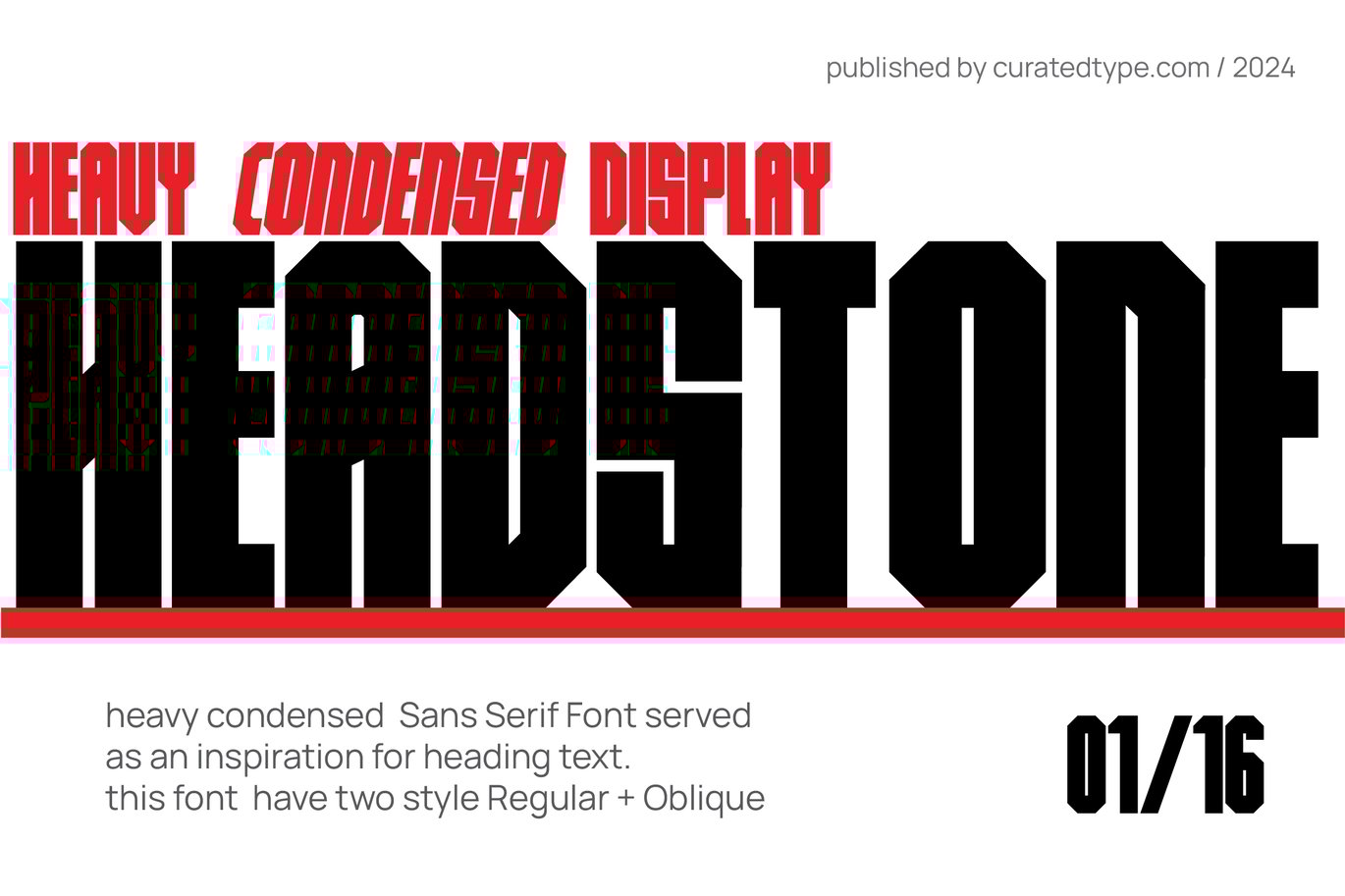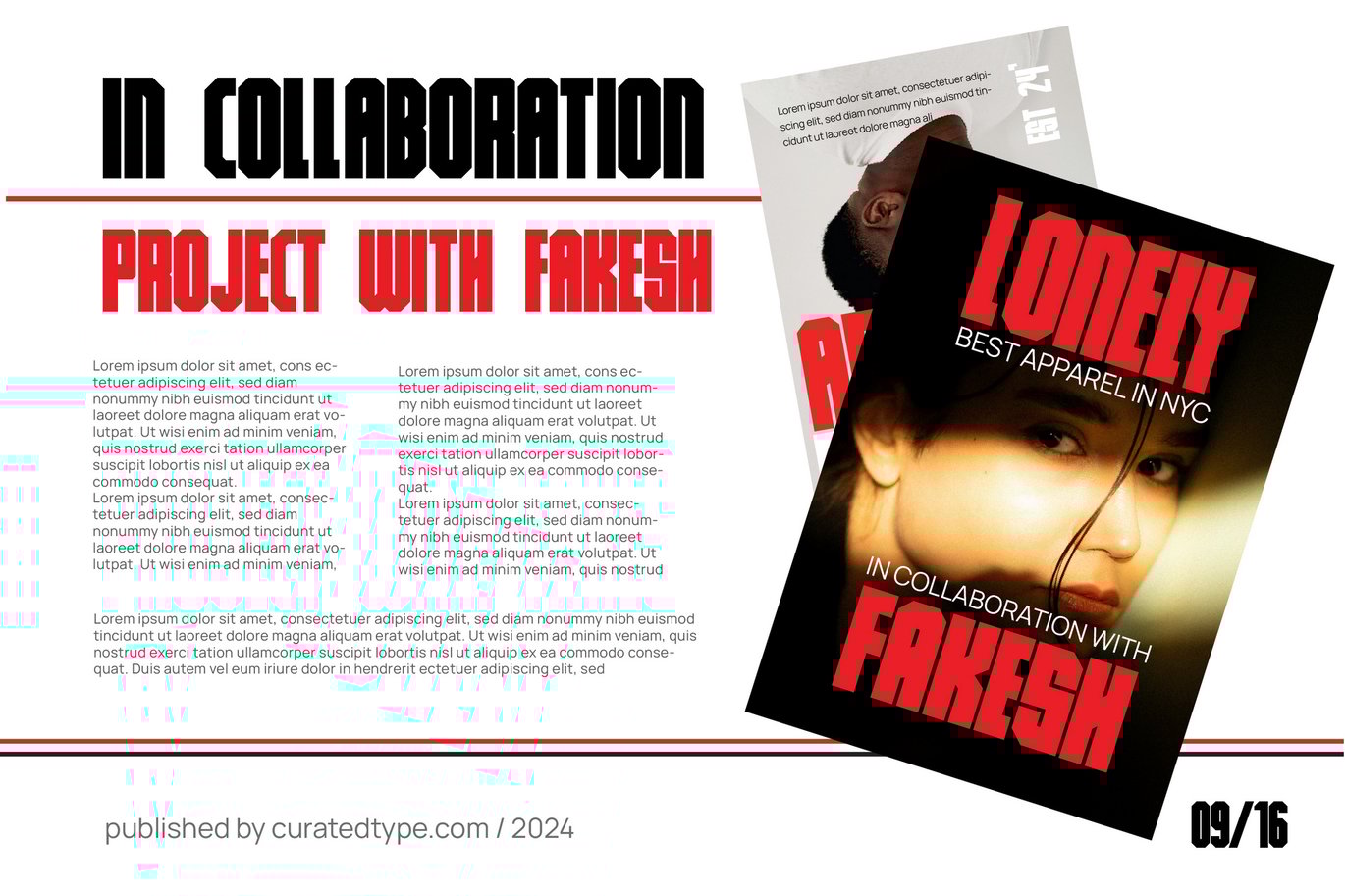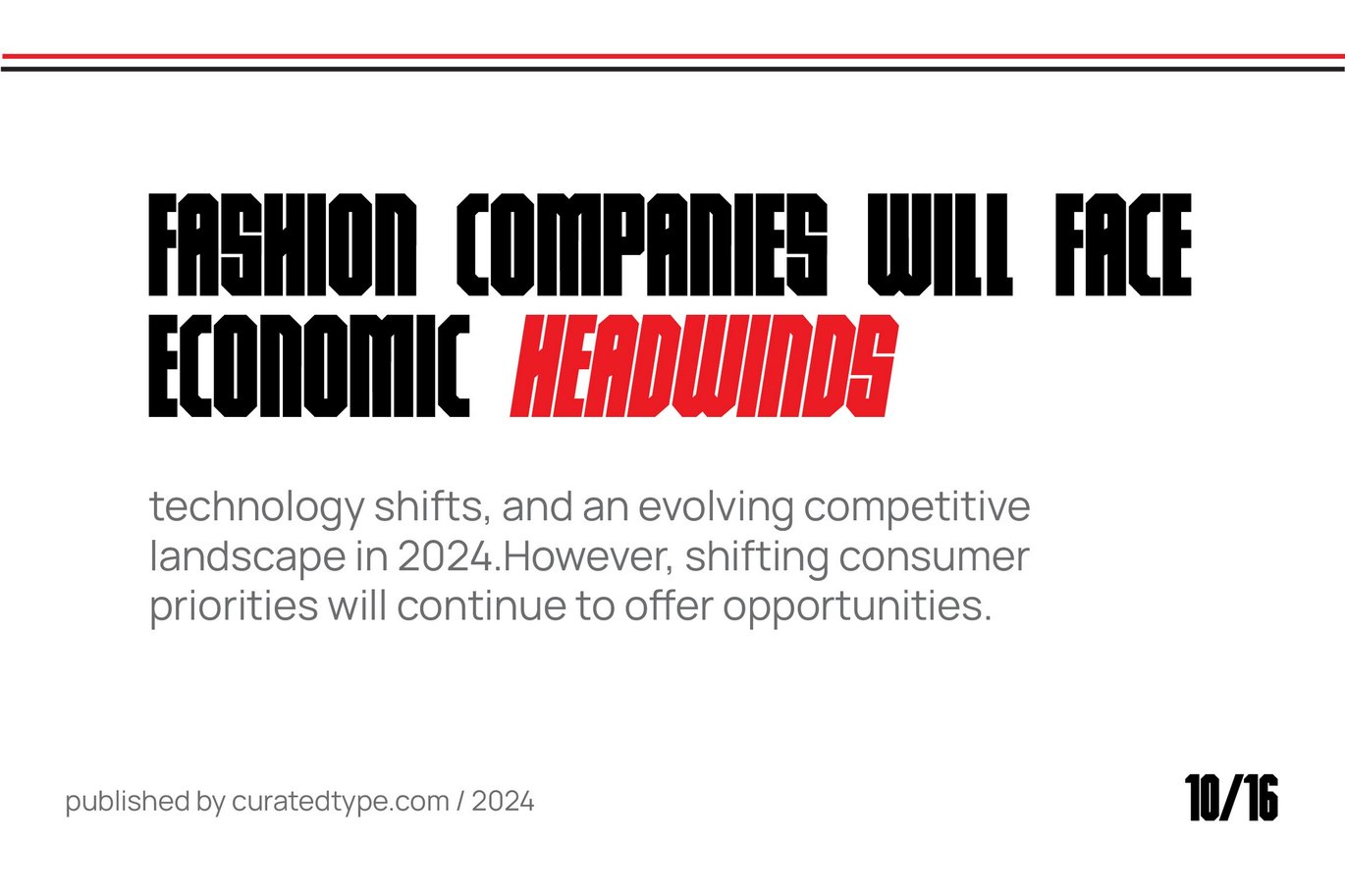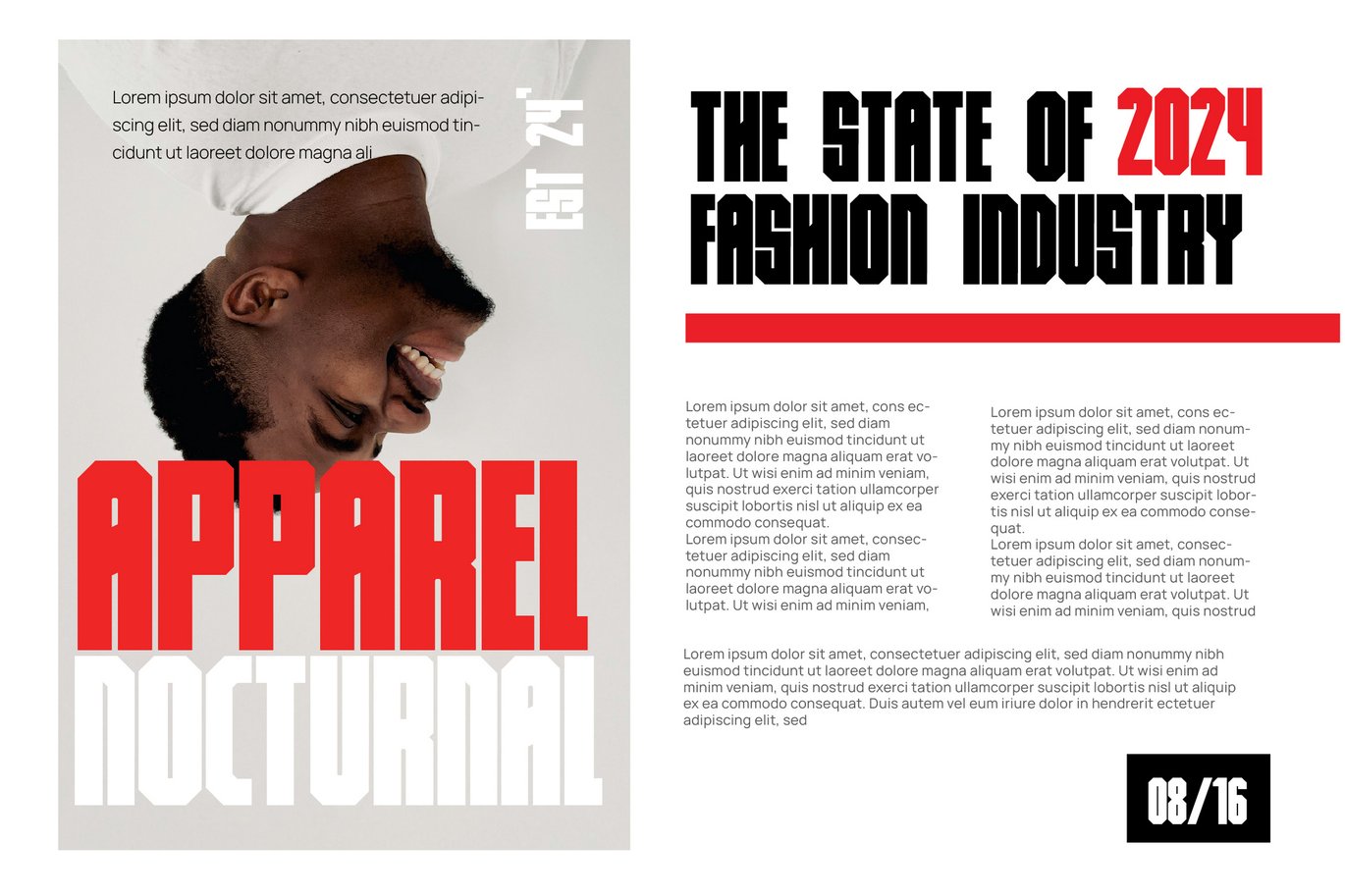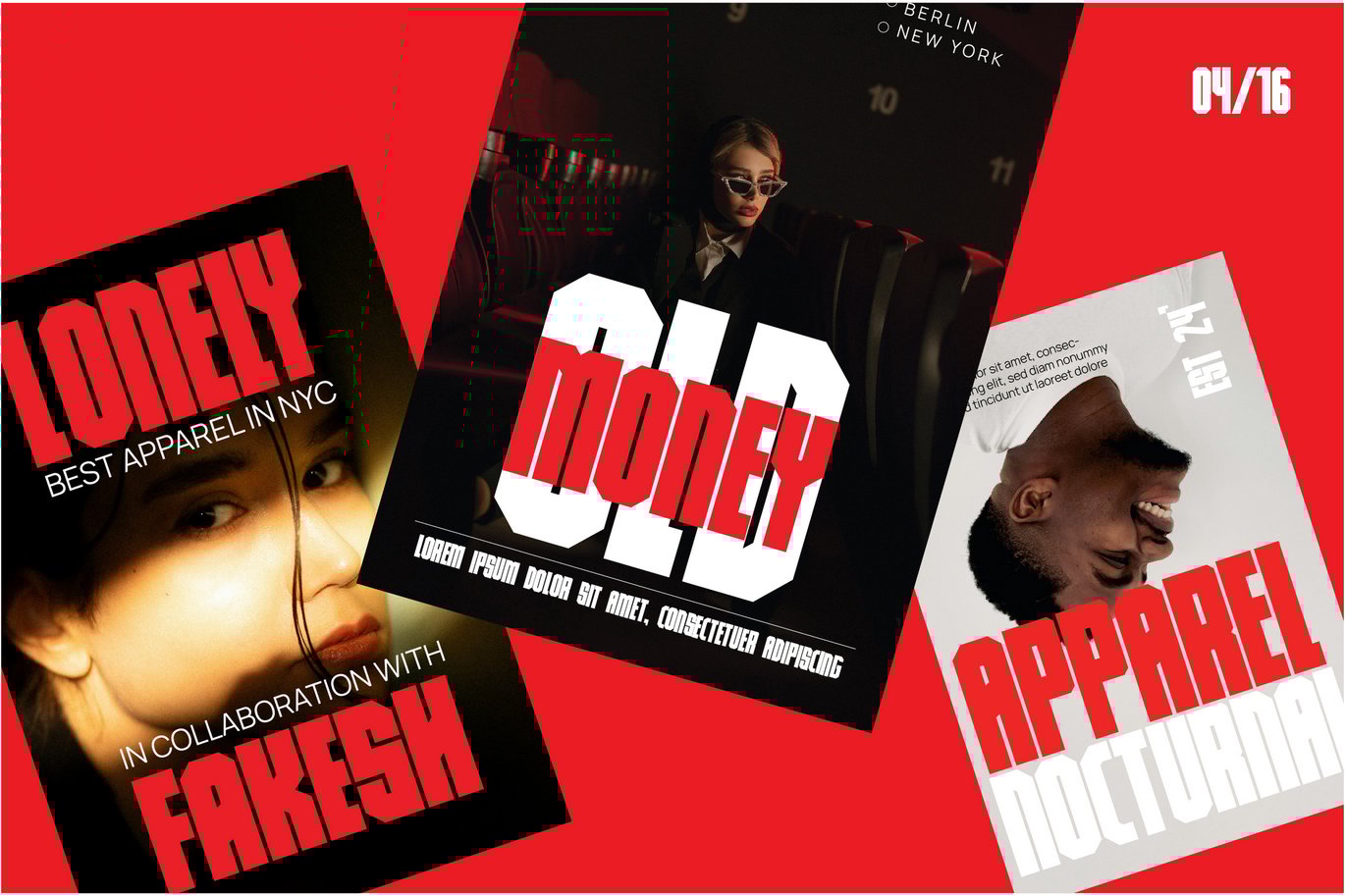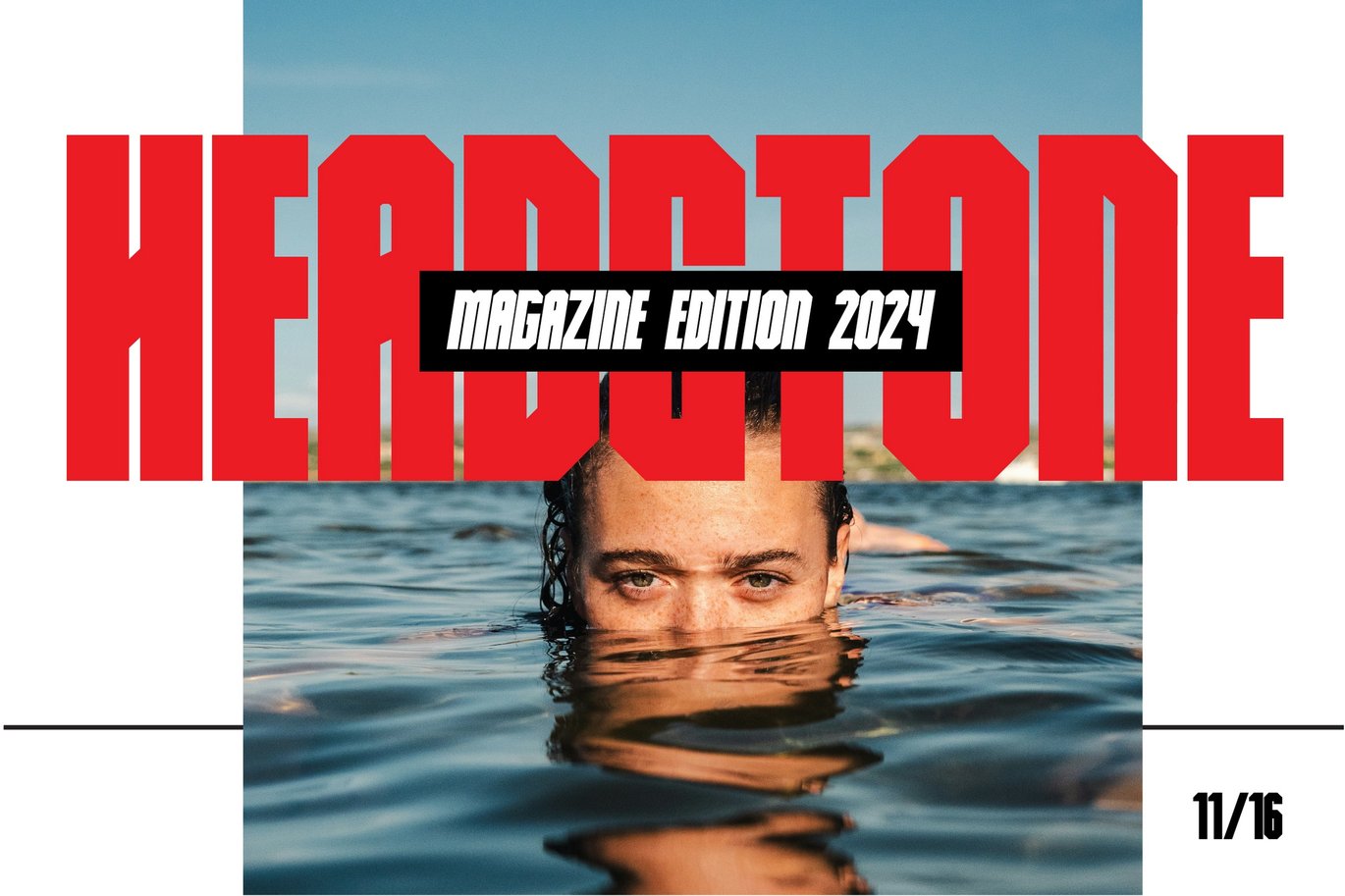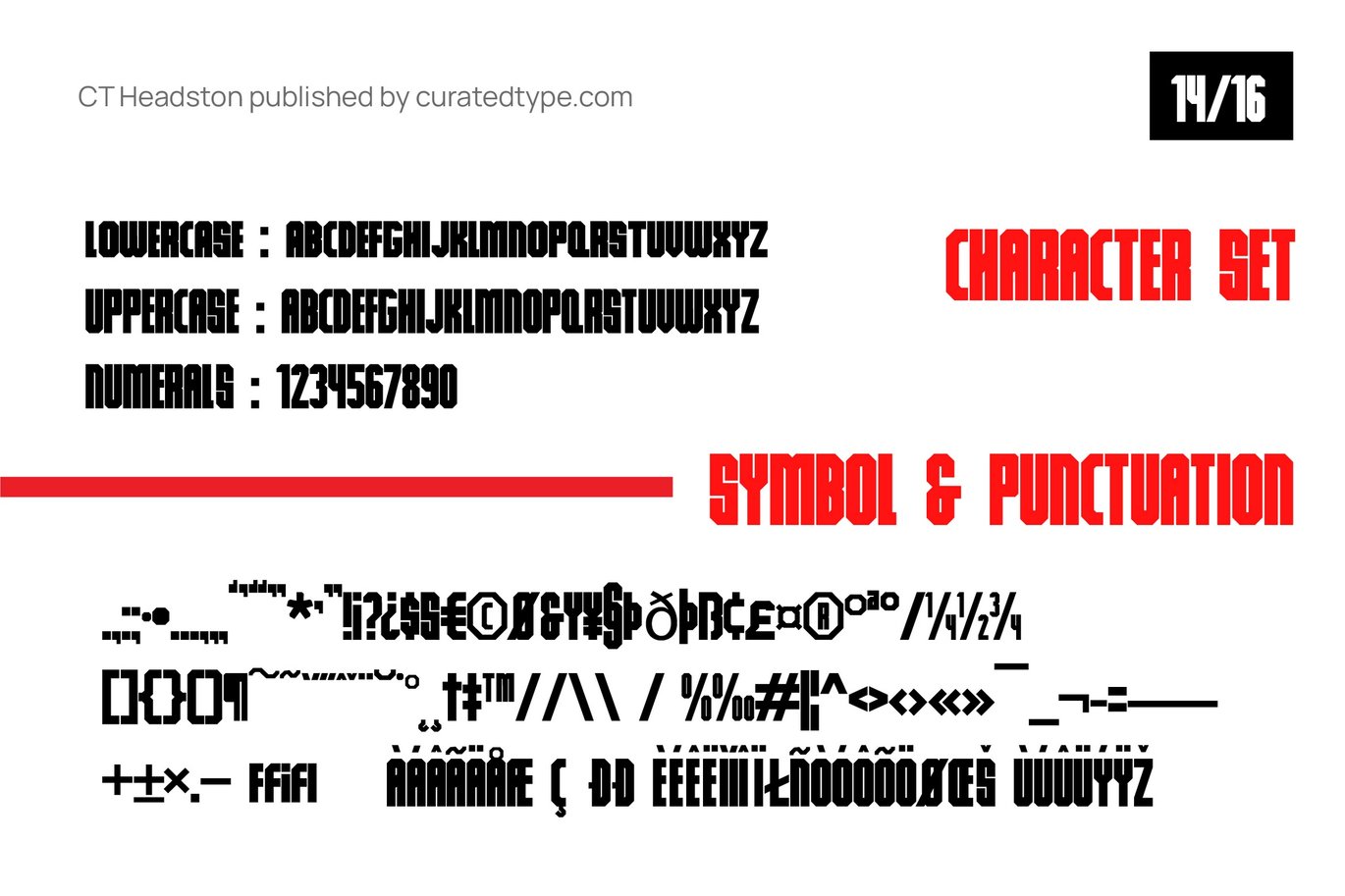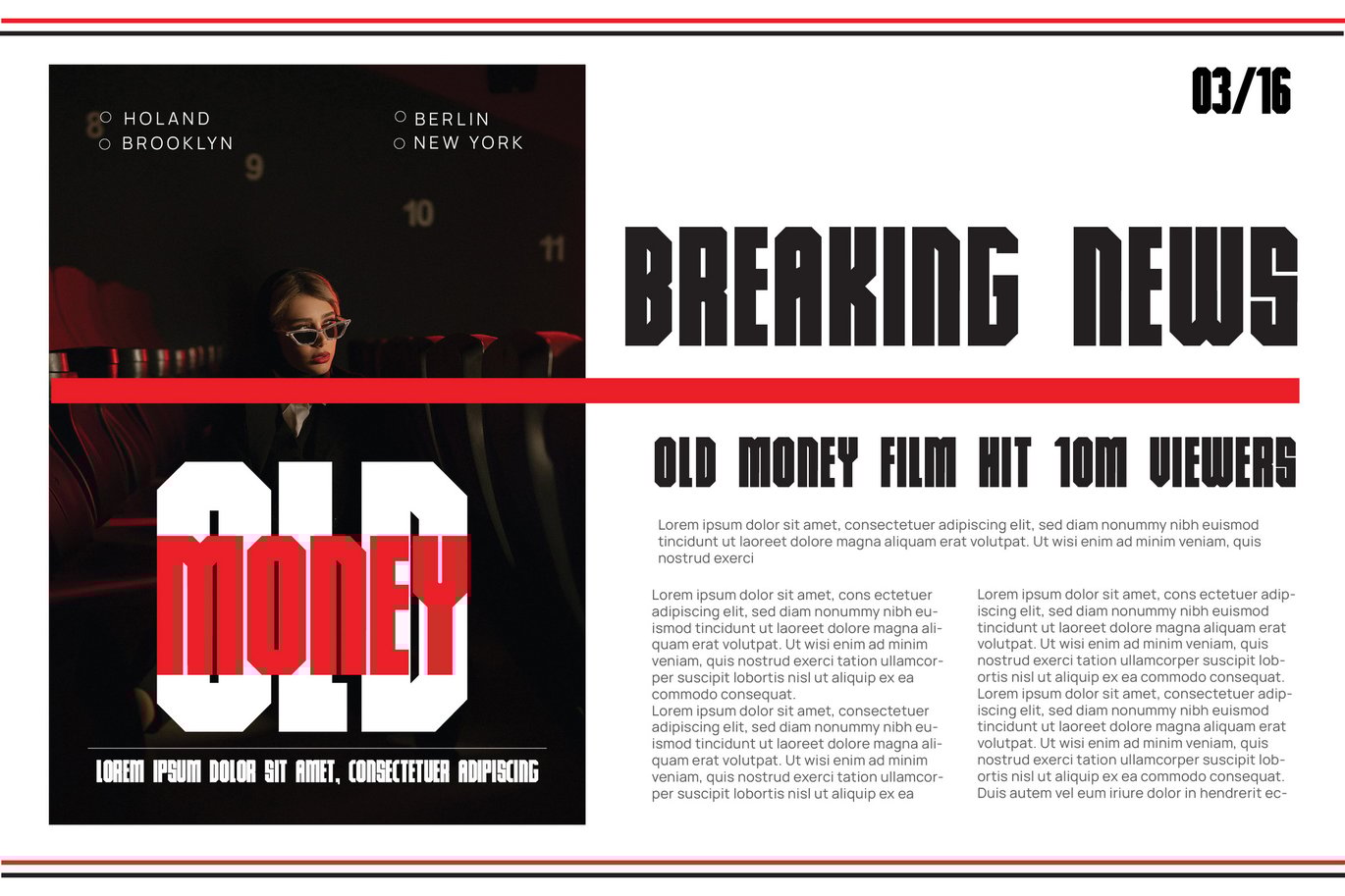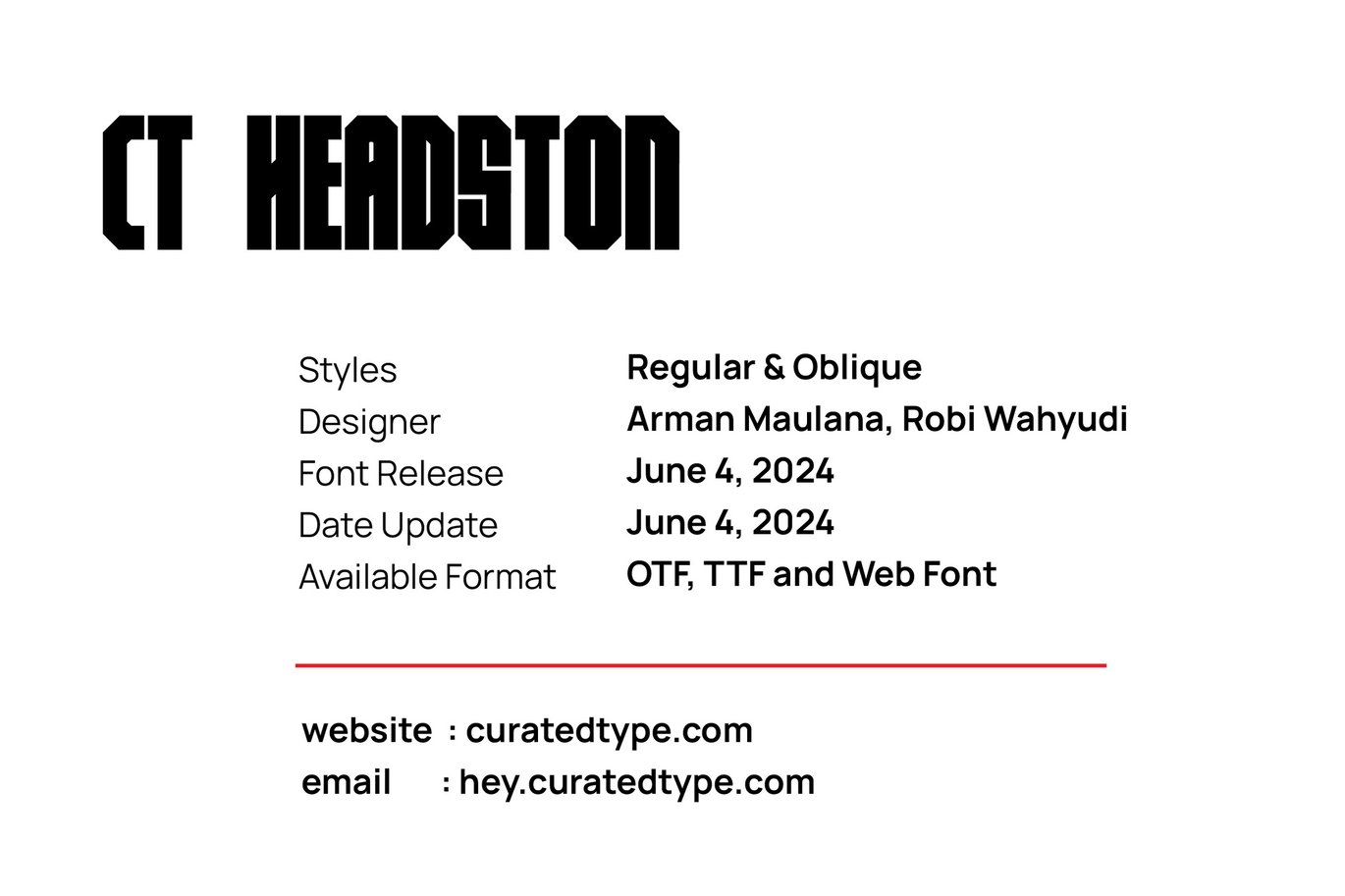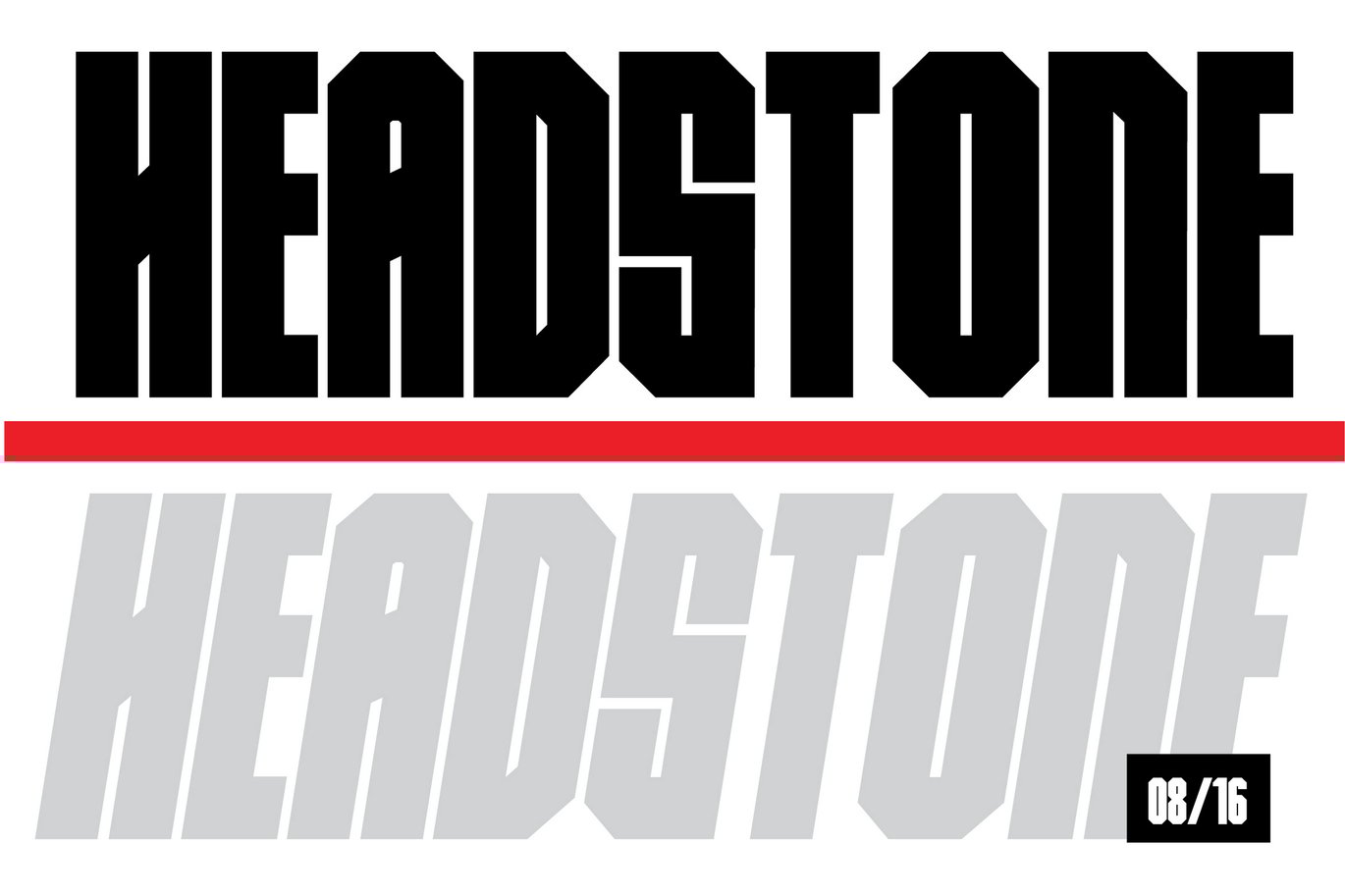
Headstone Heavy Condensed Sans Font
Introducing HEADSTONE, a font that commands attention with its bold, heavy presence. This condensed sans-serif typeface is designed to make a powerful impact, ideal for headlines, banners, and display text. The solid, unwavering lines of HEADSTONE ensure that any message you want to convey will not only be seen but felt. It’s a font that exudes confidence and authority, seamlessly blending modernity with a timeless appeal. Whether used in print or digital media, HEADSTONE delivers clarity and intensity, making it a versatile choice for various design needs.
Available in regular and oblique styles, HEADSTONE provides flexibility without compromising its striking aesthetic. The regular style offers a straightforward, robust look that demands attention, while the oblique style introduces a dynamic, slanted edge that adds motion and intrigue to your text. This duality allows HEADSTONE to fit effortlessly into a variety of contexts, from bold advertising campaigns to sleek editorial layouts. Elevate your designs with HEADSTONE, and let its commanding presence leave a lasting impression on your audience.